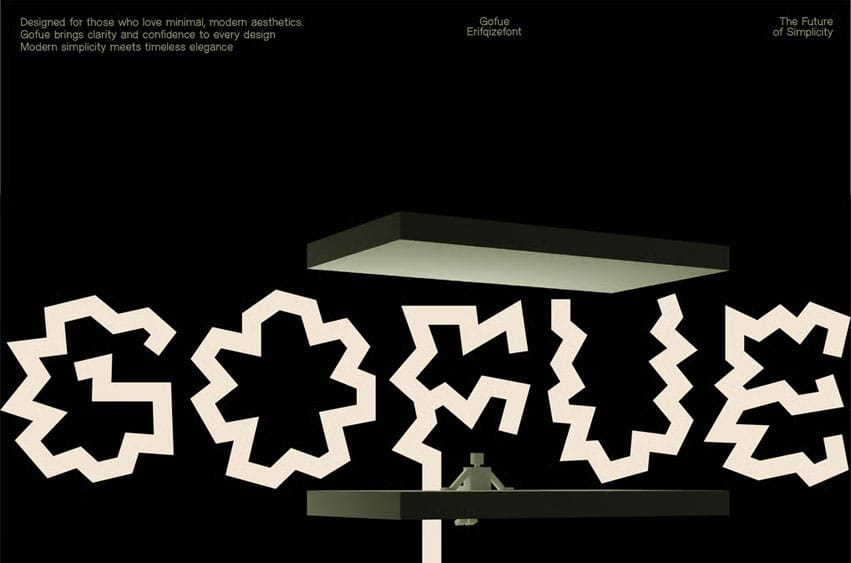
Gofue Font is a zigzag display font built with bold, irregular, and highly expressive letterforms. Each character features sharp, angular strokes that create a wild, experimental, and abstract visual style. This font delivers a strong artistic personality—perfect for designers who want to make a striking statement.
Its broken-line construction, glitch-like rhythm, and unconventional shapes make Gofue ideal for music posters, album covers, fashion visuals, editorial layouts, branding projects, creative event promotions, and any modern design that needs a bold alternative aesthetic.
Gofue transforms every word into a unique piece of visual artwork with its energetic and unconventional form.